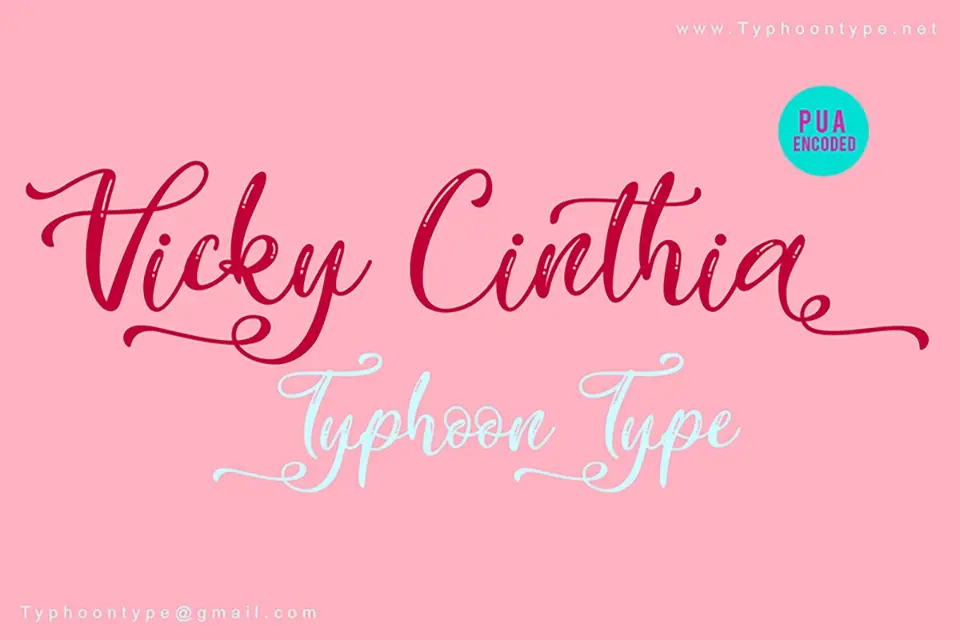
Vicky Cinthia Font
Vicky Cinthia is an elegant and flowing script font designed with intricate loops and flourishes that create a sense of continuity and sophistication. This typeface combines classic elegance with progressive design elements, making it perfect for lettering, greeting cards, invitations, and wedding-related projects. The font captures the essence of authentic and playful design, suitable for creative endeavors requiring a refined yet friendly typographic touch.